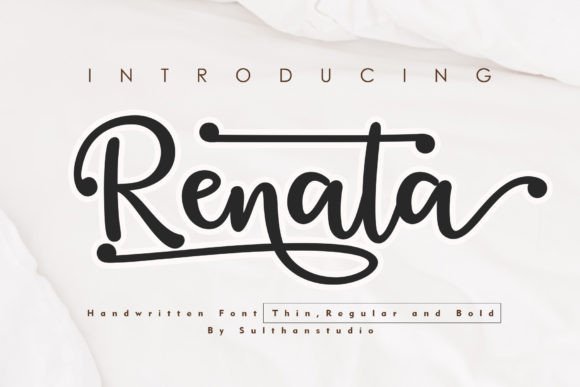
Behold, the captivating Renata Font Family – A Trio of Enchantment for Your Creative Endeavors!
In the realm of typography, there exists a font family that dances with elegance, whispering tales of heartfelt emotion and profound artistry. Allow us to introduce you to Renata, a symphony of three enthralling handwritten fonts, each possessing its own distinctive charm, yet united by a common thread of exquisite beauty.
Renata Script, the prima ballerina of the ensemble, captivates with its graceful strokes, reminiscent of a gentle breeze caressing a field of flowers. Its rhythmic flow and delicate curves evoke a sense of timeless romance, making it the ideal choice for wedding invitations, love letters, and heartfelt calligraphy.
Renata Hand, the bold and assertive sibling, commands attention with its confident lines and strong personality. Its robust strokes exude a sense of authority and determination, making it perfect for branding, logos, and marketing materials that demand impact and memorability.
Renata Brush, the playful and vivacious member of the family, delights with its spontaneous energy and expressive strokes. Its dynamic lines and playful charm lend themselves effortlessly to social media graphics, product packaging, and any design that calls for a touch of whimsy and vibrancy.
Together, these three fonts form a formidable creative force, ready to transform your designs into works of art. Whether you're a seasoned professional or just starting your creative journey, Renata Font Family is your trusted companion, guiding you towards typographic excellence.
Embrace the beauty of handwritten elegance. Unleash your creativity. Let Renata Font Family be your muse, and watch as your designs blossom into masterpieces.